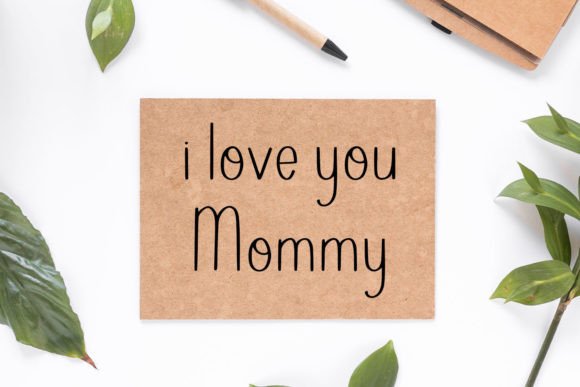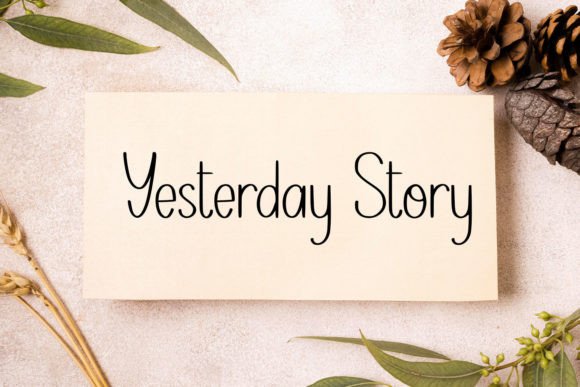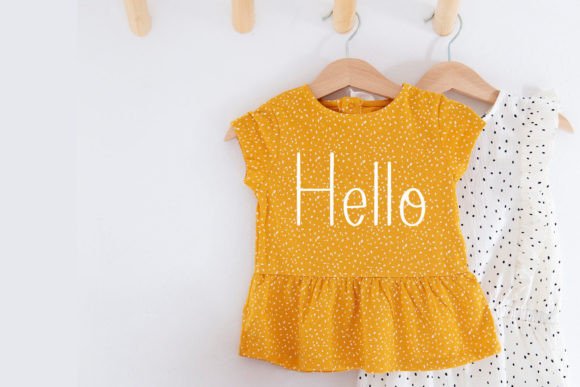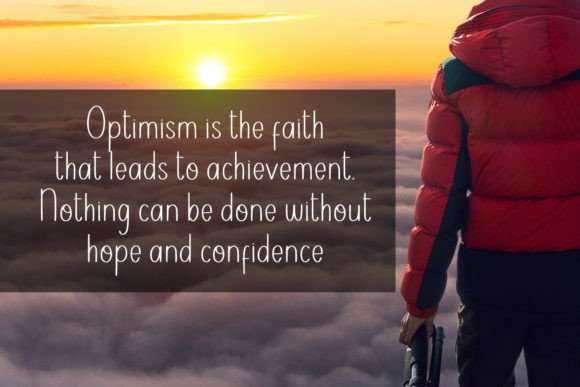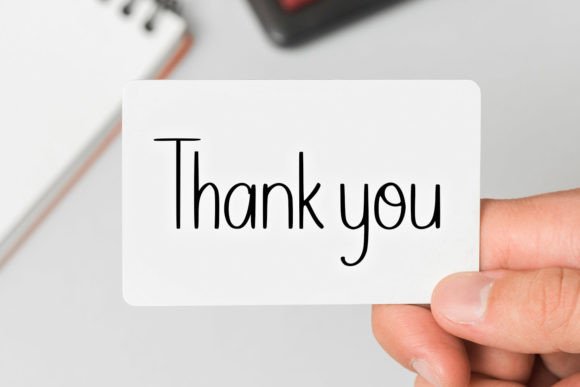
Introduction to Industrial Font
Industrial is a childish, easy-to-read sans serif font that conveys impeccable friendliness.
Industrial is a childish, easy-to-read sans serif font that conveys impeccable friendliness. Whether you’re using it for crafts, digital design, presentations, or making greeting cards, this font has